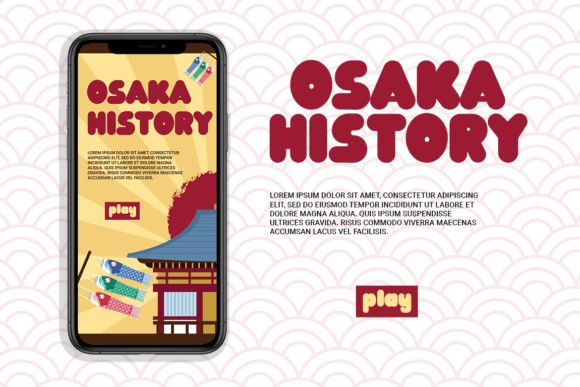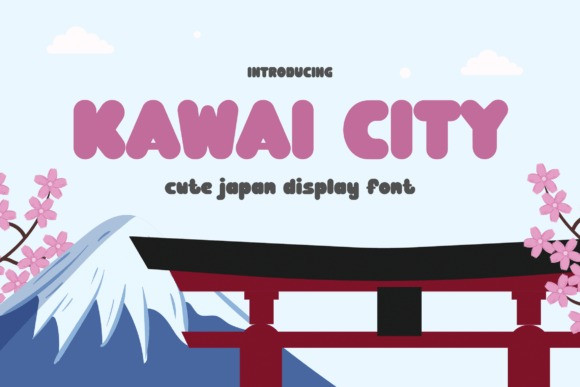
Kawai City Font
Kawai City Display Font is a cute and adorable display font. Whether you use it for cartoon-related designs, children games or just any creation that requires a lovely touch, this font will be an amazing choice